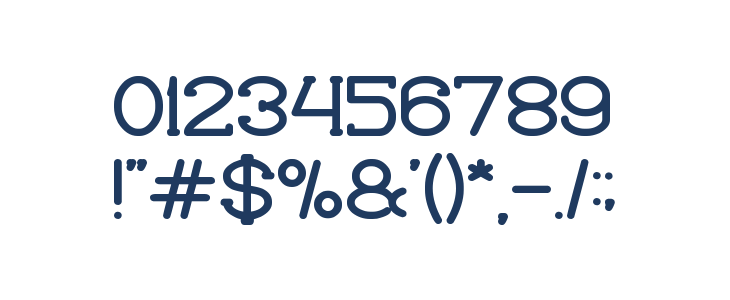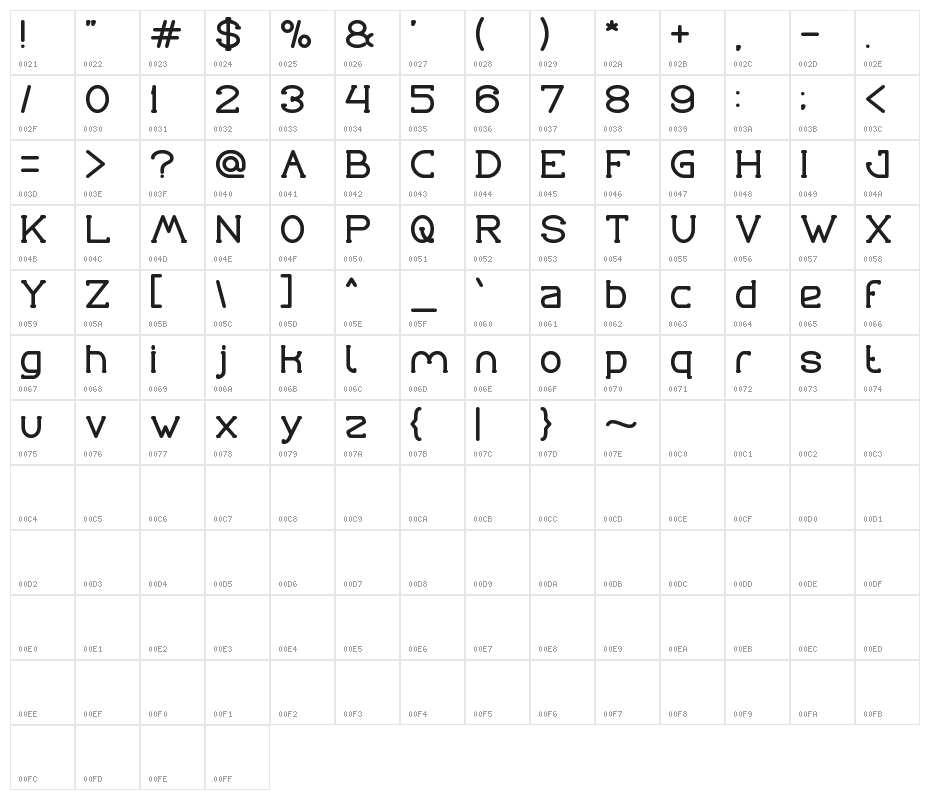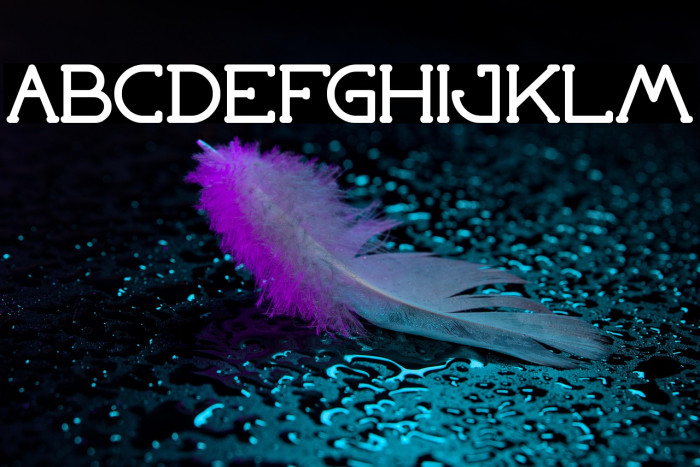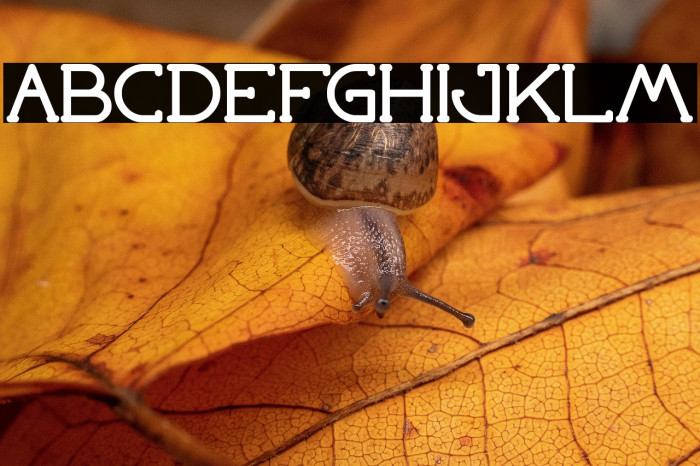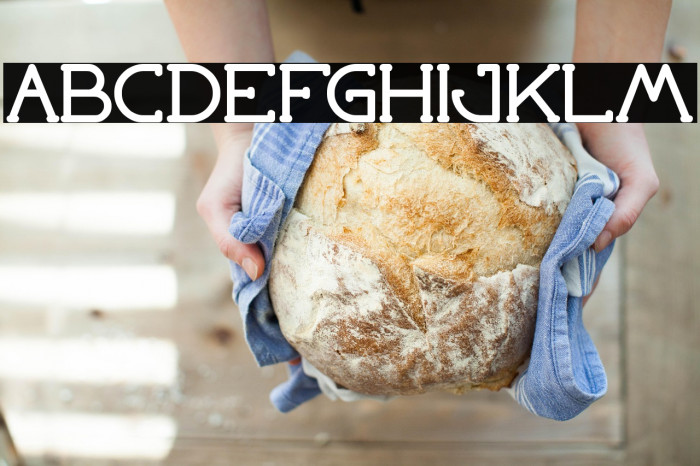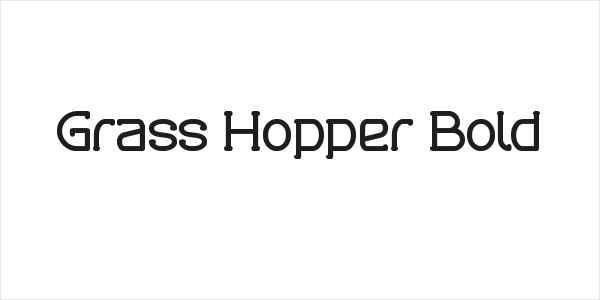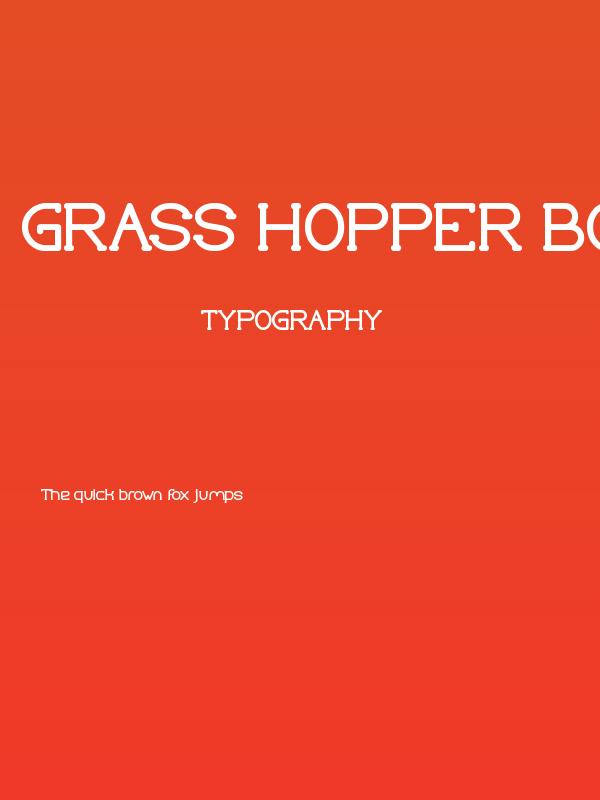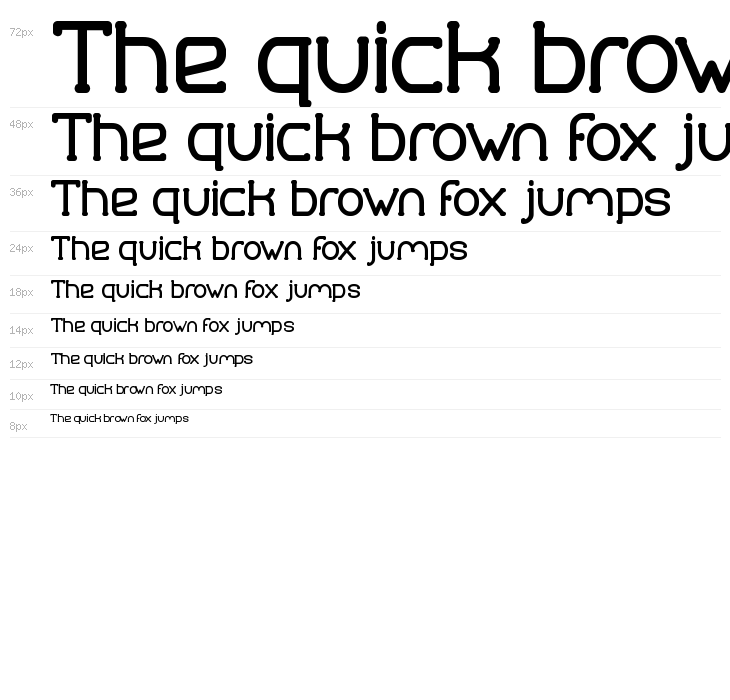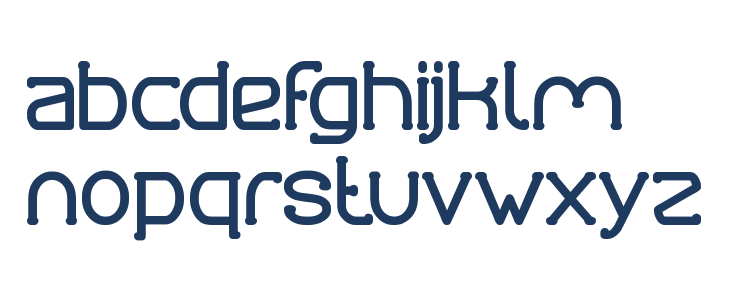
Grass Hopper Bold Font
Grass Hopper Bold Description
This font features a bold and playful design with rounded edges and a unique, slightly whimsical style. The characters are well-defined with a consistent stroke width, giving it a modern and approachable appearance. The uppercase letters have a distinct geometric influence, while the lowercase letters maintain a friendly and casual look. The numerals are clear and easy to read, matching the overall aesthetic of the font. Special characters are creatively integrated, maintaining the font's cohesive style. This font is ideal for projects that require a fun and engaging visual element.
| Overall Style | Modern, Playful |
| Proposed Projects | Ideal for children's books, playful branding, posters, and creative advertising. |